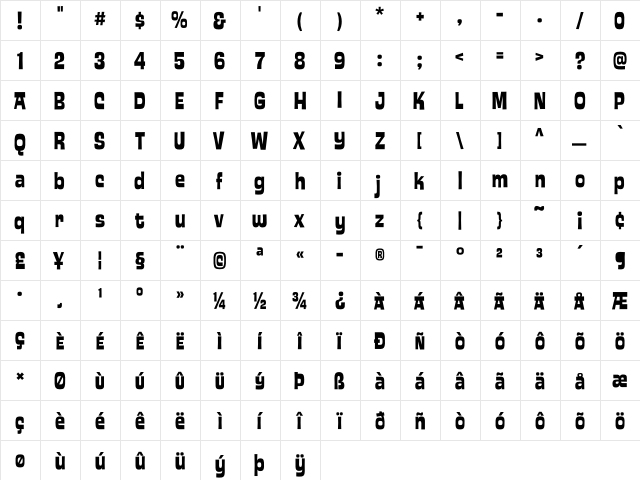
Ed Interlock
| Designer | Ed Benguiat, Ken Barber |
Design Context for Ed Typeface
Ed takes a measured approach to typography — its balanced proportions and neutral character make it a reliable workhorse for both digital and print work.